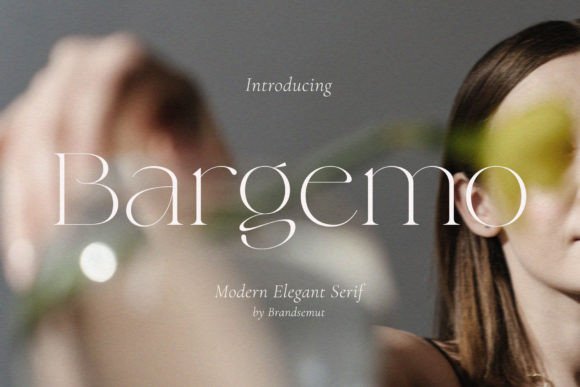
Grab the enchanting Bargemo font, a serif masterpiece that unravels sophistication and charm. Its modern elegance dances across every letter, adding a touch of timeless beauty to your Instagram posts. Indulge in a world of visual delight as your words take on a captivating allure, leaving an unforgettable impression. Whether you crave a touch of timeless elegance or a dash of contemporary chic, Bargemo effortlessly weaves its magic into every design. Join the league of savvy creators and elevate your Instagram presence with the breathtaking Bargemo font today!